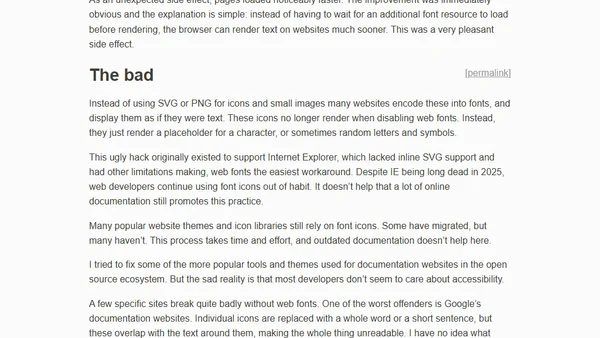
One year of using the web with web fonts disabled
Read OriginalEarly last year, I disabled web fonts in my browser. Several sites and blogs which I follow use a custom font that the author thought was pretty but has quite poor legibility. Some make it hard to tell apart the m and the n. Others use thin fonts which are hard to focus on visually. Some are just terrible for readability and merely designed to look good.Disabling web fonts is a known accessibility